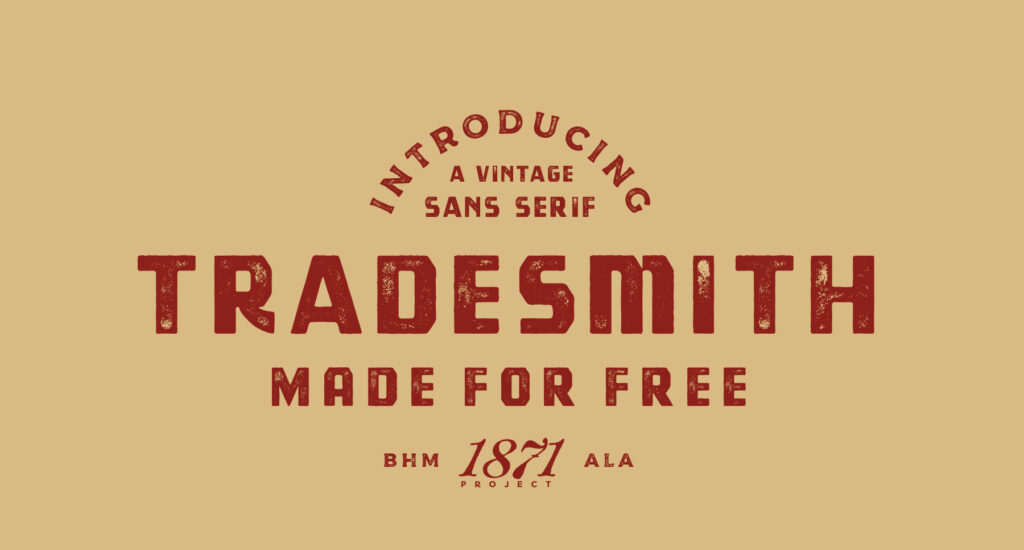
Tradesmith is a brand new vintage font from 1871 Project. This font is the perfect balance of vintage and industrial with squared characters and angled corners – suitable for pairing with other fonts to create authentic branding, logos, lockups & more. It includes 4 styles: Regular, Round, Rough & Stamp, which means you’ll be able to get the perfect character your project needs.